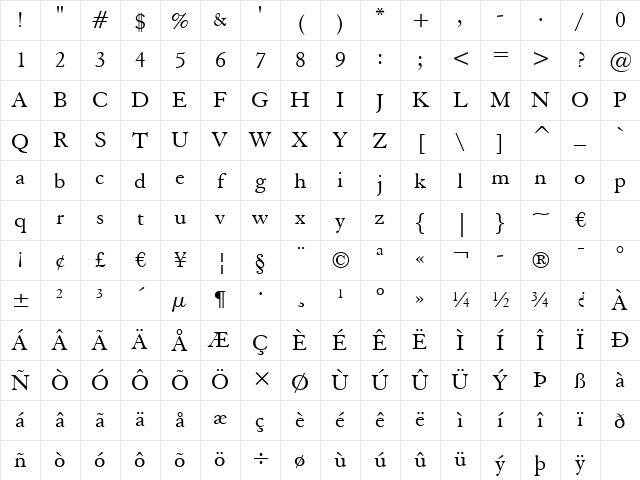
ElegaGarmnd BT Roman
Design Context for ElegaGarmnd BT
ElegaGarmnd BT is a composed and adaptable typeface that performs quietly and consistently across a wide range of design contexts.
Pro Tip: Use ElegaGarmnd BT in both headline and body roles to test its range before committing to a single application.